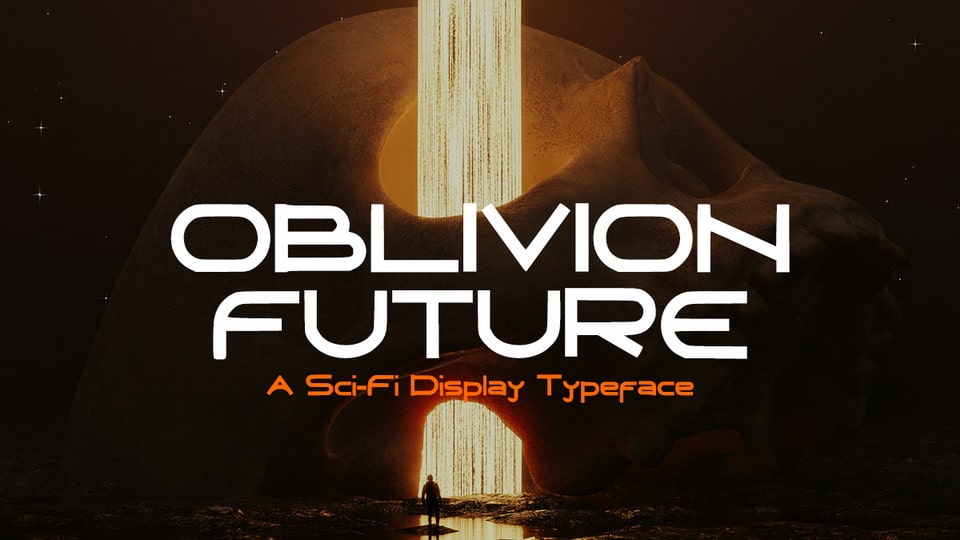
Download Oblivion Future font, a sleek, futuristic display typeface that embodies the clean, cutting-edge aesthetics of modern sci-fi design.
Designer: Marco Zenki